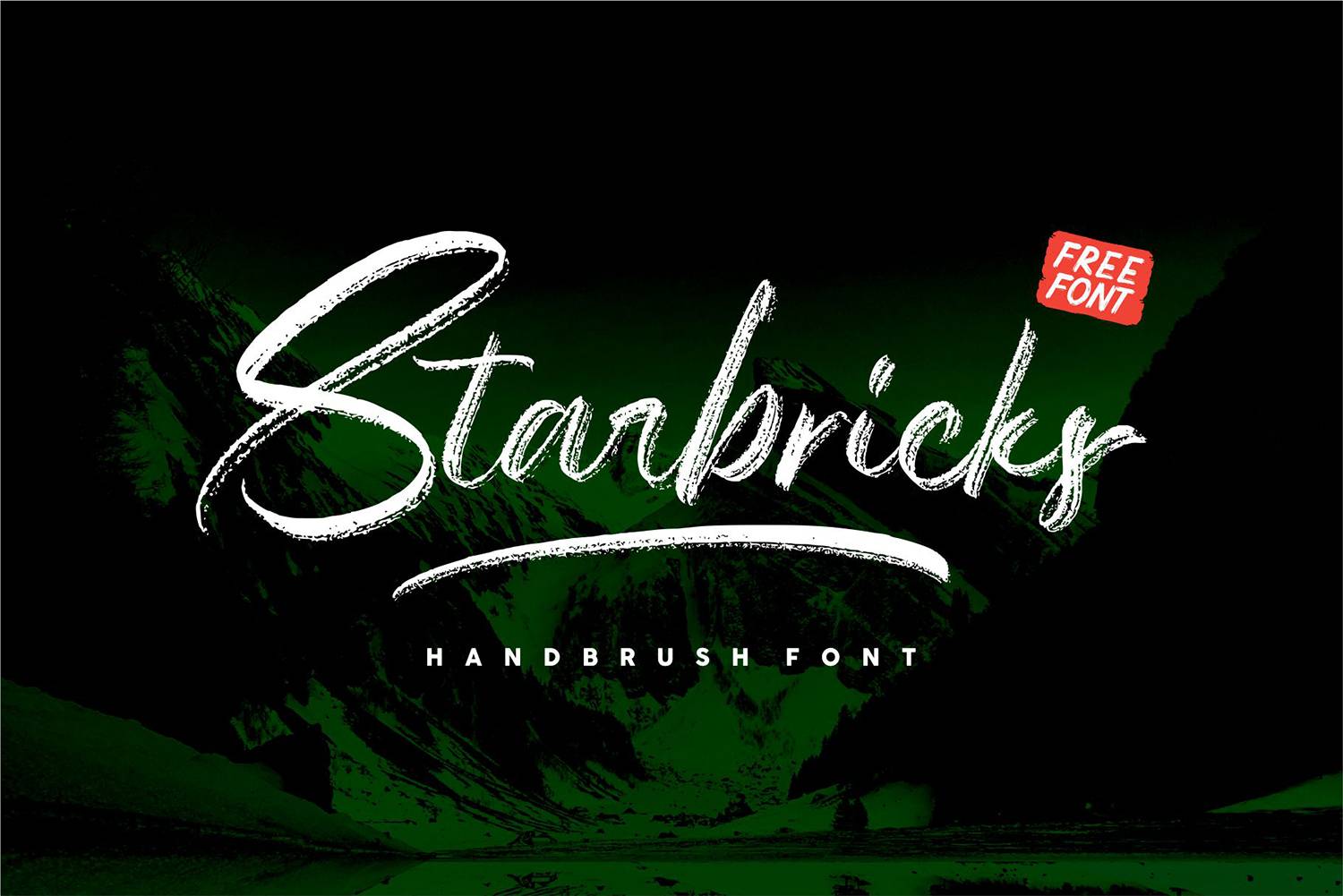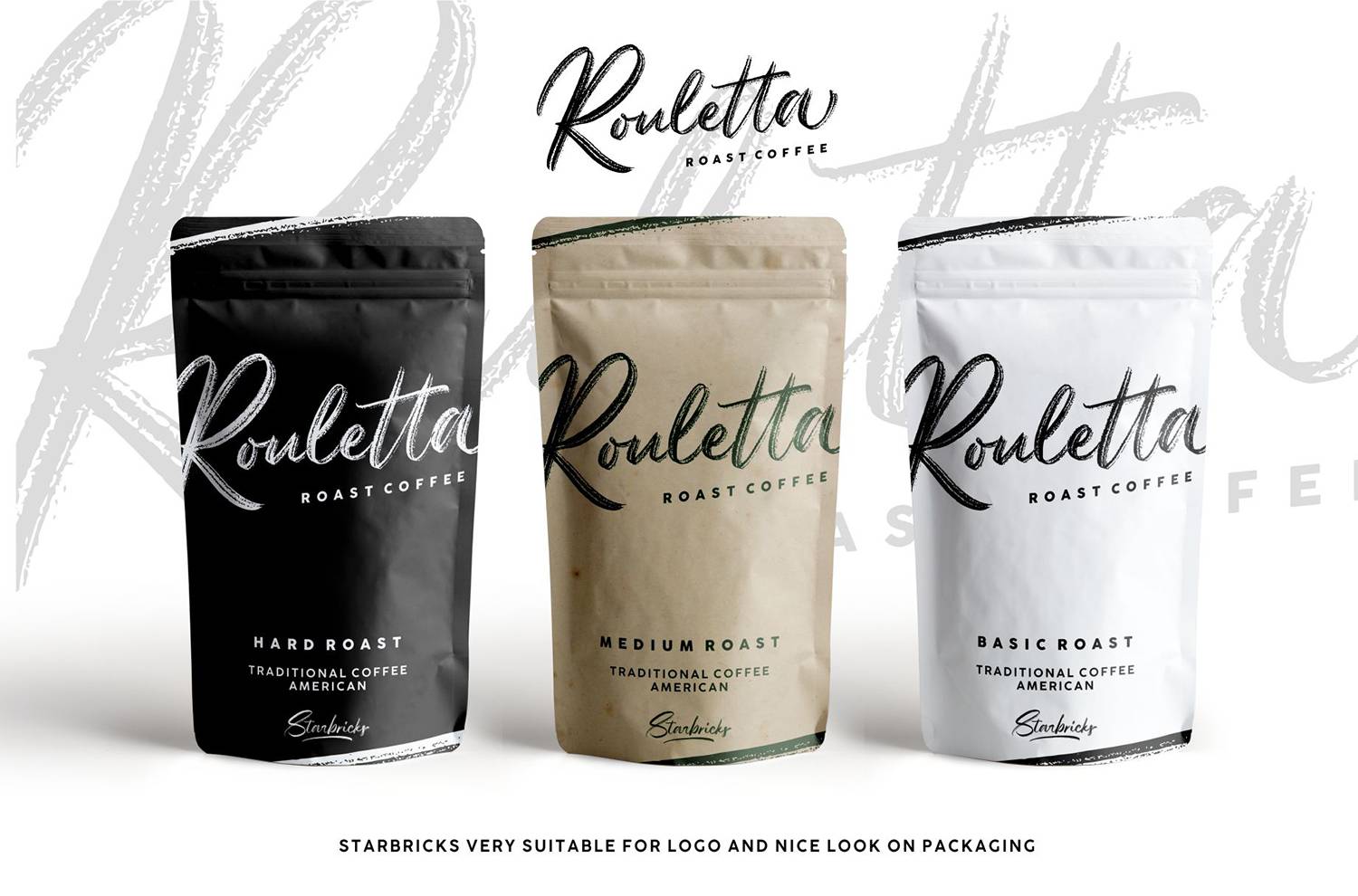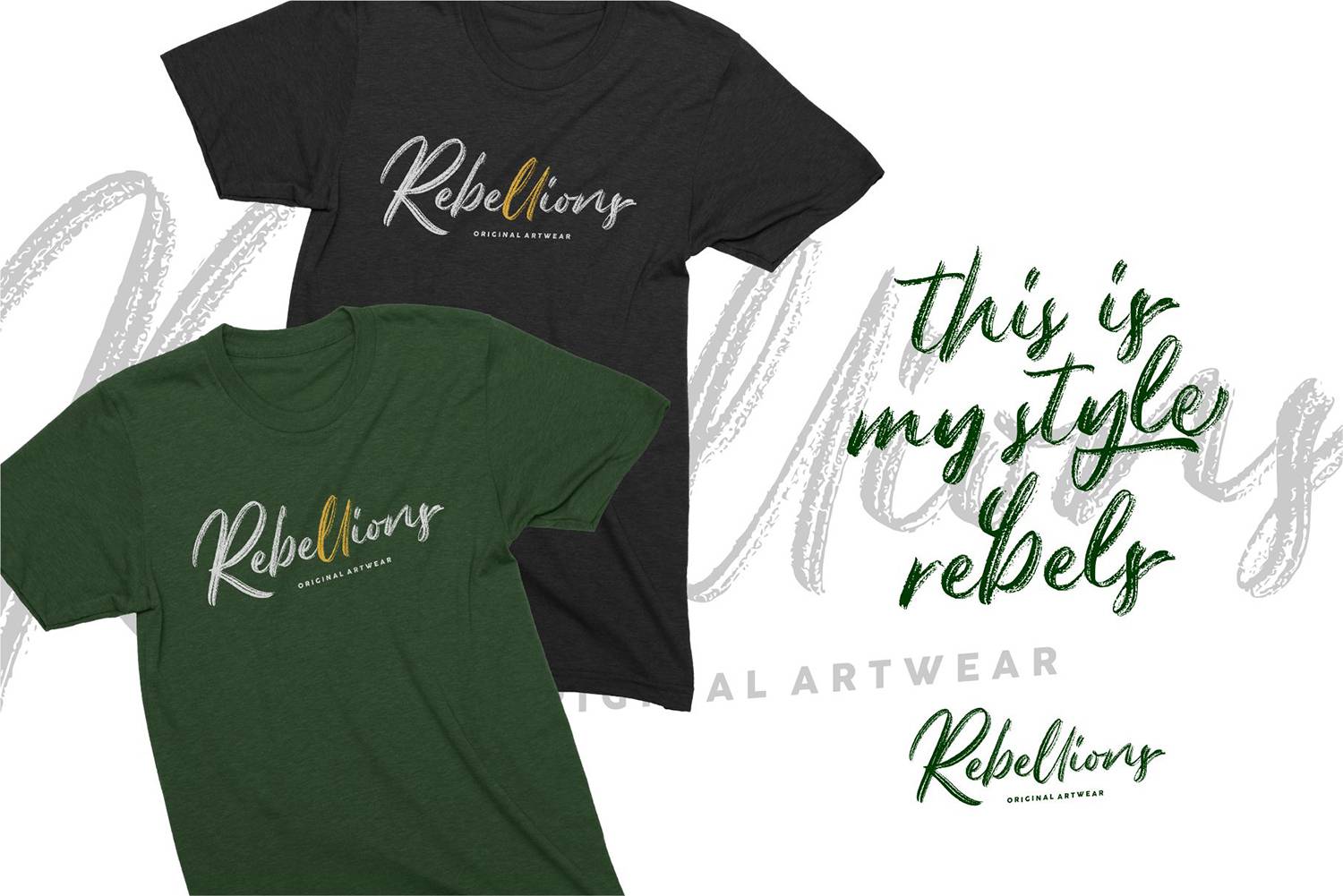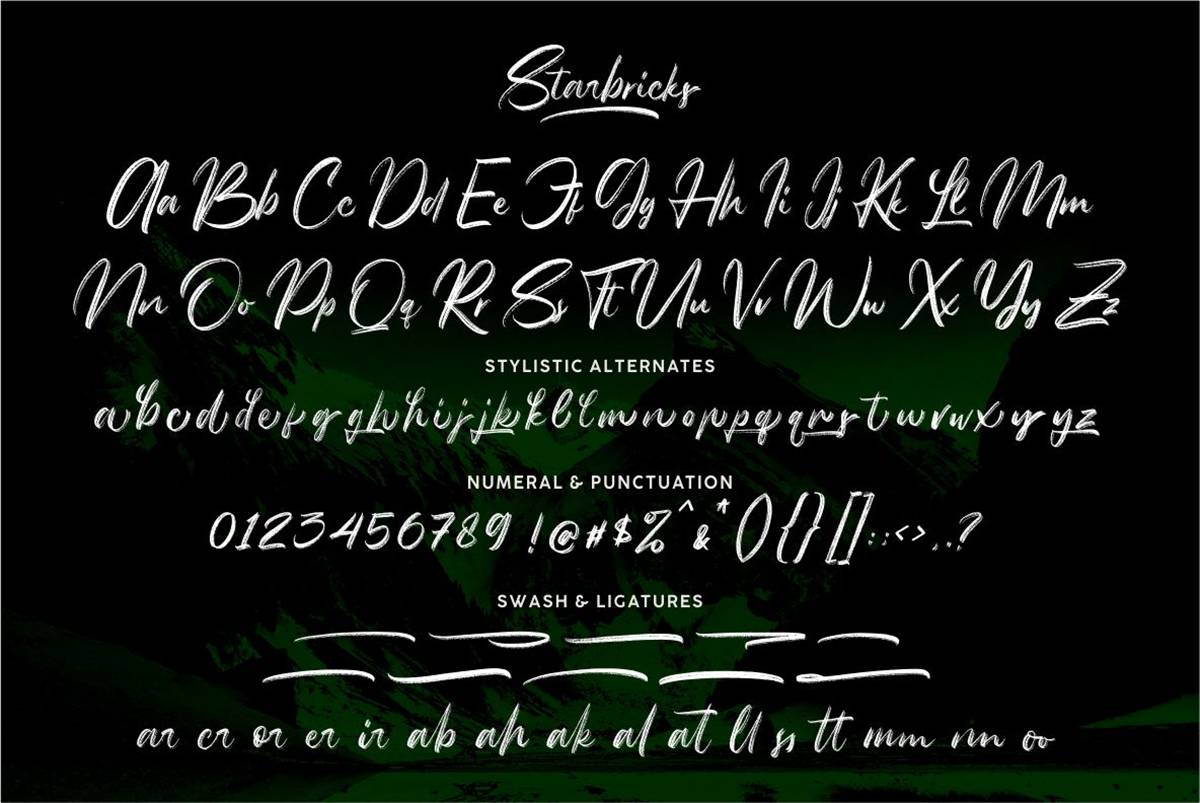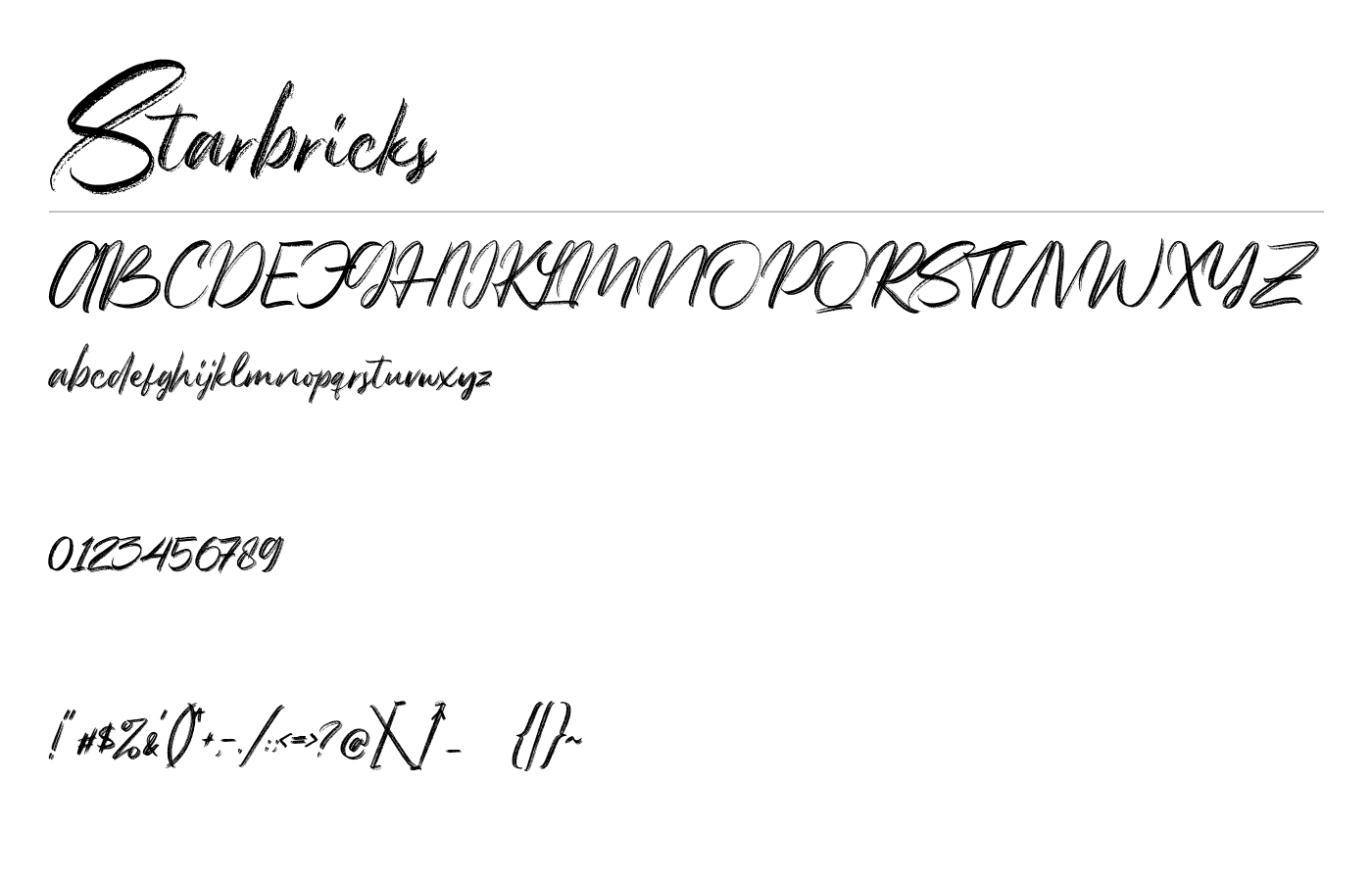
Starbricks is a dynamic, brush-script font characterized by its rough, textured strokes that convey a sense of energy and creativity. Its tall, narrow letterforms and varying stroke widths create a lively and informal style, making it perfect for eye-catching headlines, logos, and artistic branding that seeks a bold yet personal touch. This font works wonderfully for designs that want to blend modern flair with a hand-crafted, expressive vibe.
Starbricks Font
About Starbricks Font
| Font family | Starbricks Font |